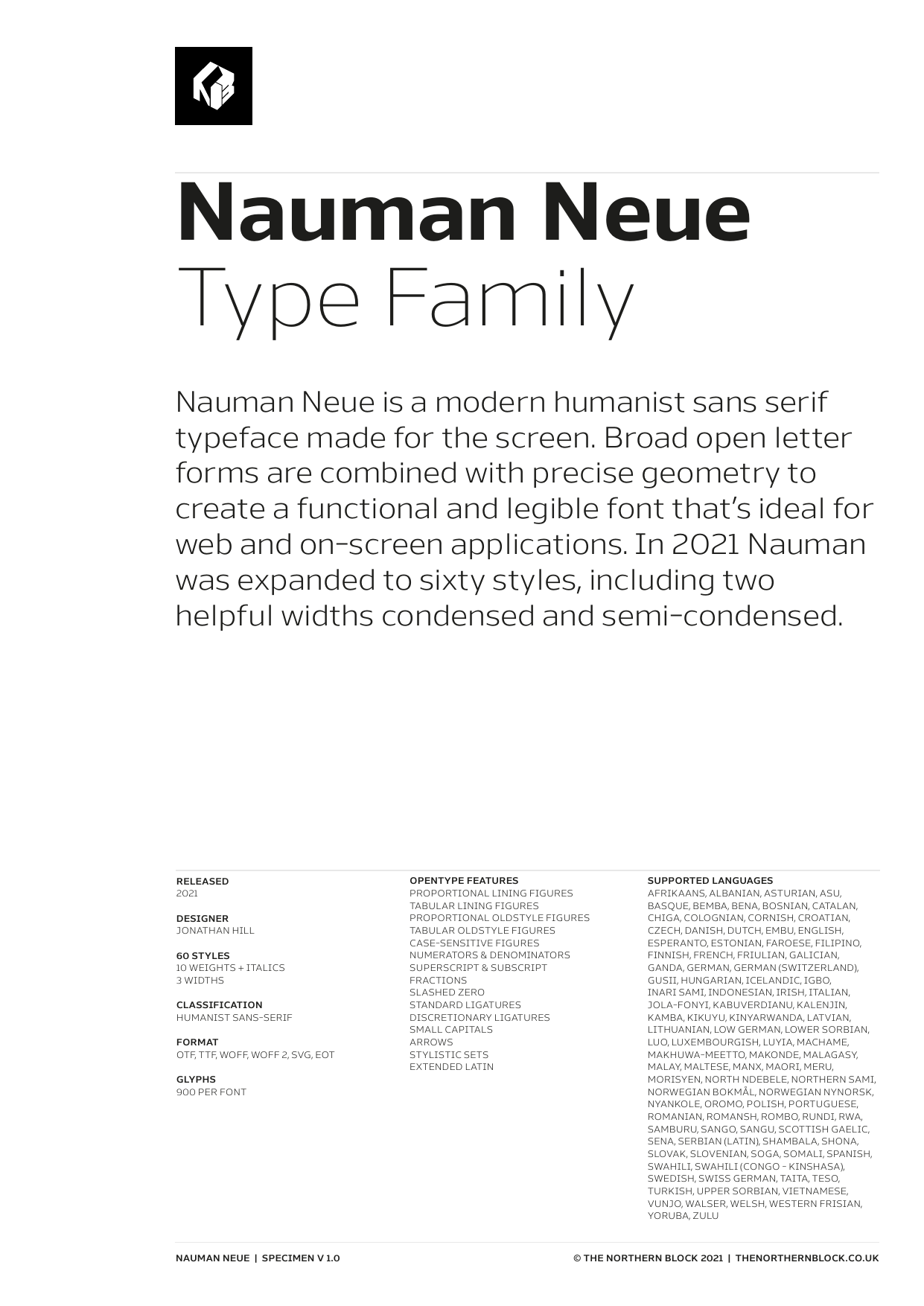
Nauman Neue
One of Nauman Neue's notable strengths is its ability to maintain clarity even at small point sizes, making it an excellent choice for situations where space is limited. In 2021, Nauman Neue underwent expansion, offering a total of sixty styles, including two widths—condensed and semi-condensed. This variety allows for flexibility in design, accommodating different visual preferences and layout requirements.
Included in the font are 900 characters per style, ten weights and three widths with matching italics. OpenType features consist of seven numerals variations, including inferiors, superiors, fractions, tabular, lining, and old-style. It also has alternate a, e, I, M, small caps, arrows and language support covering Western, Southern, Central Europe and Vietnamese.